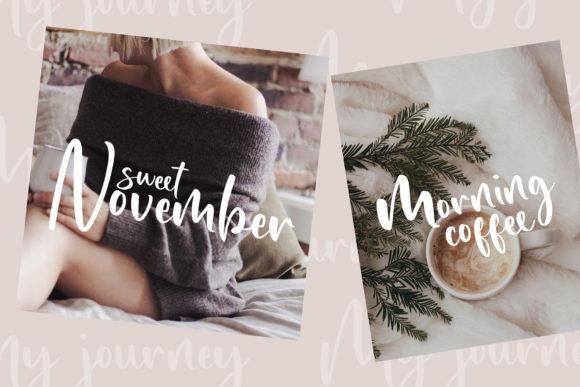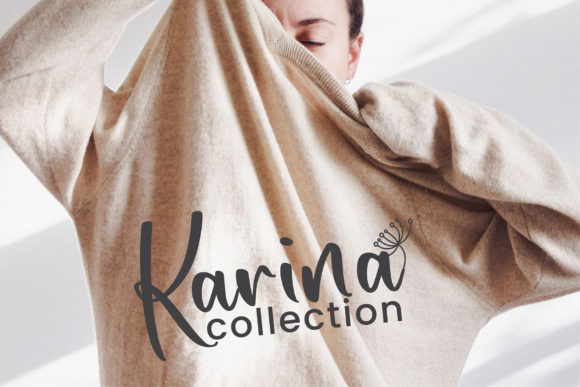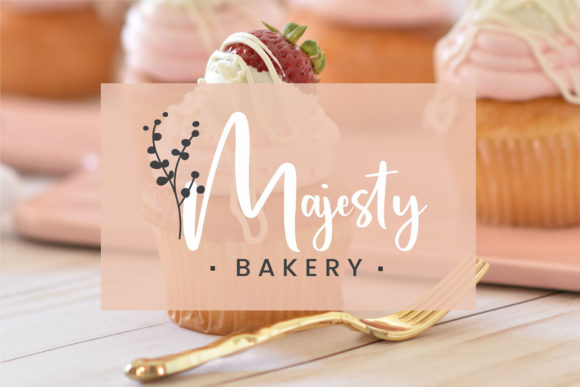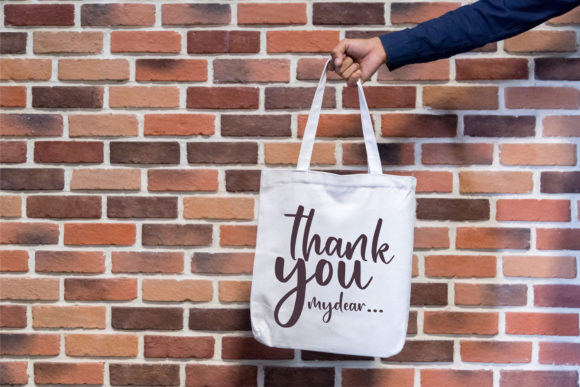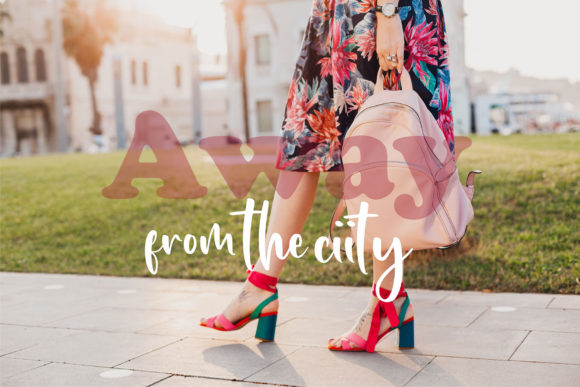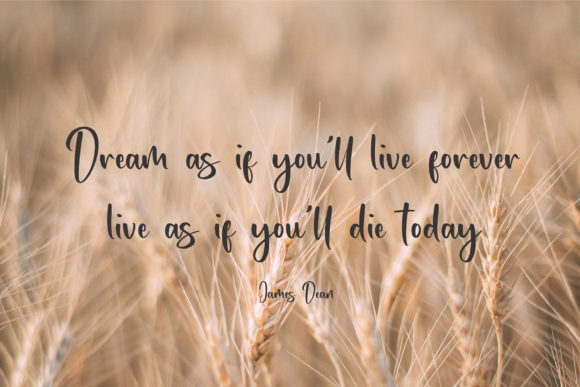
Introduction to Mostiya Font Font
Fonts play a crucial role in design, and the Mostiya Font font is a typeface that brings both character and versatility to any project. Whether you’re working on a branding project, a website, or a print design, the Mostiya Font font offers a unique style that can elevate your work.
Mostiya is a beautiful and modern handwritten font.
It features an elegant style which is perfect for creating sophistiacted designs Mostiya is perfect for branding projects, logo, wedding designs, social media posts, advertisements, product packaging, product designs, label, photography, watermark, invitation, stationery and more.
Key Features of Mostiya Font Font
Why Choose Mostiya Font Font?
The Mostiya Font font is more than just a typeface – it’s a design tool that helps you communicate your message with style and clarity. Its unique character set and versatile design make it suitable for a wide range of applications, from elegant invitations to bold headlines.
With its carefully crafted letterforms and balanced proportions, the Mostiya Font font ensures readability and visual appeal across all mediums.
What makes Mostiya Font font special?
The Mostiya Font font stands out with its unique design, exceptional readability, and versatility across various design applications.